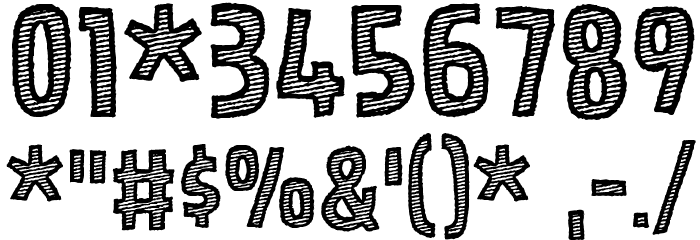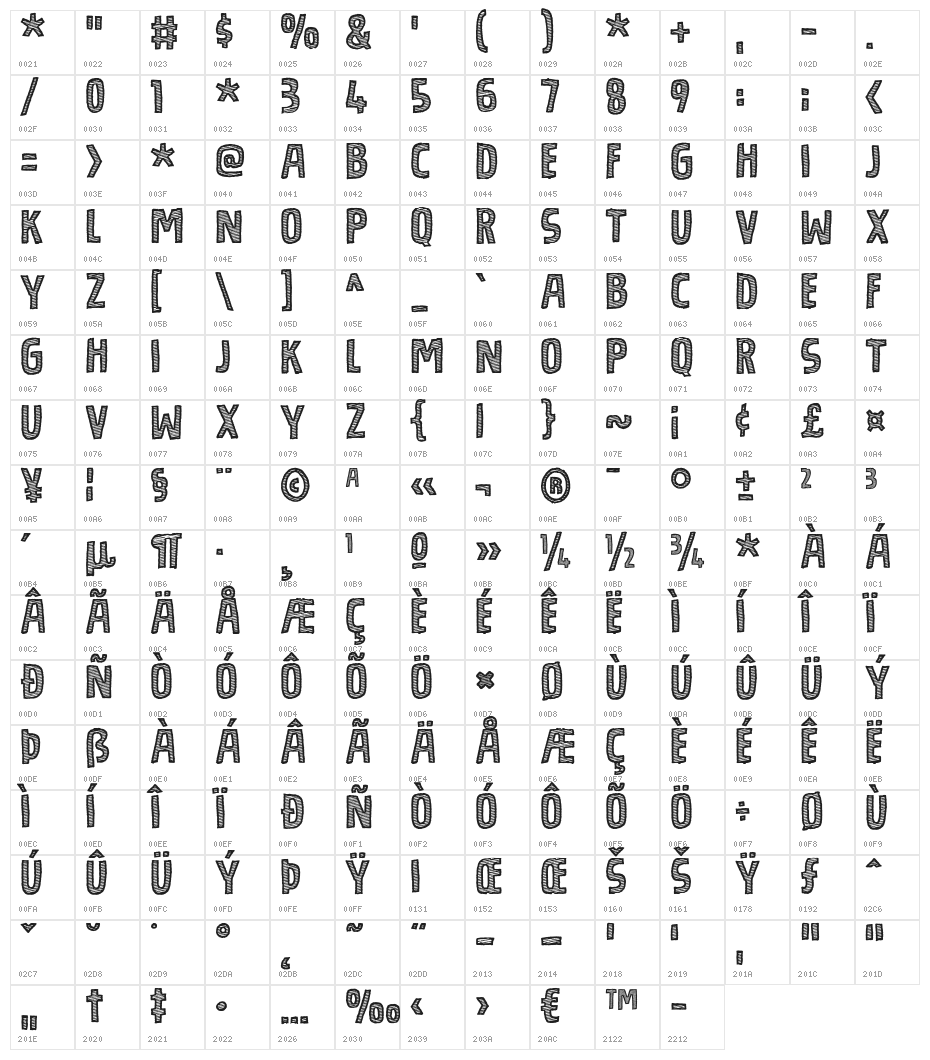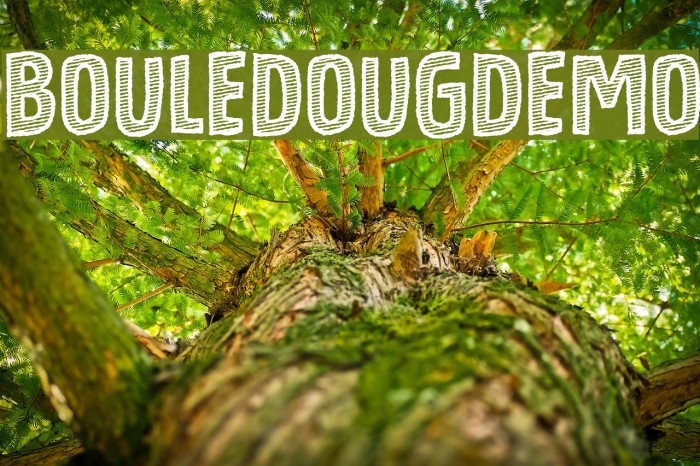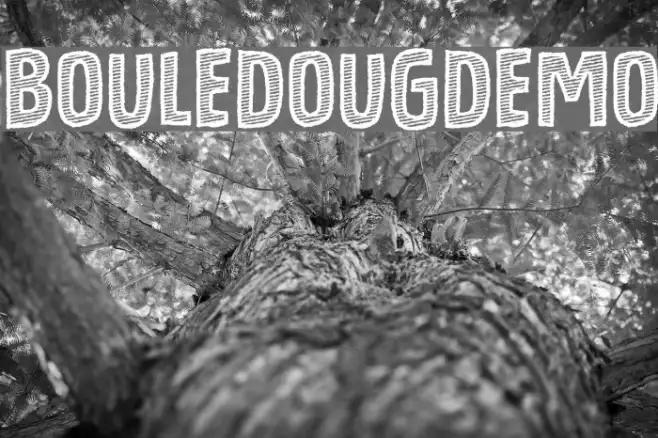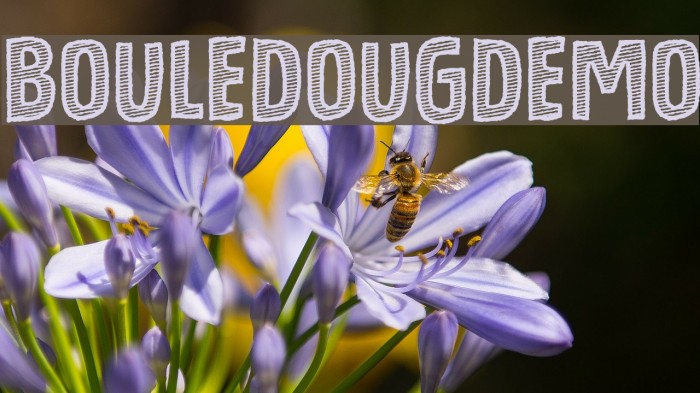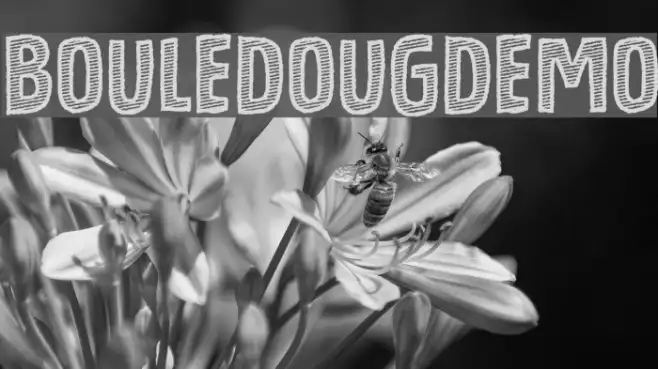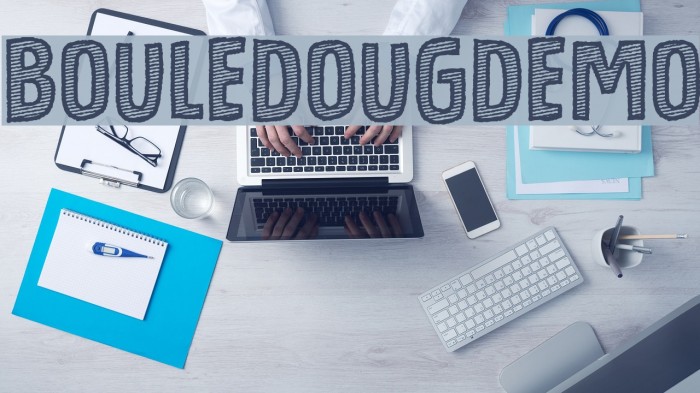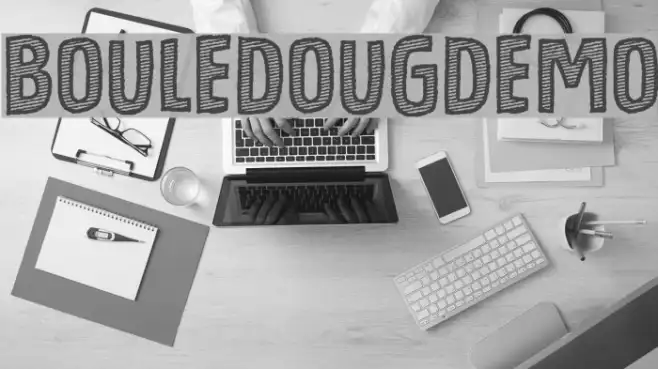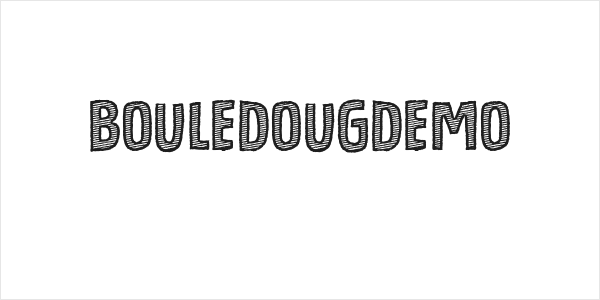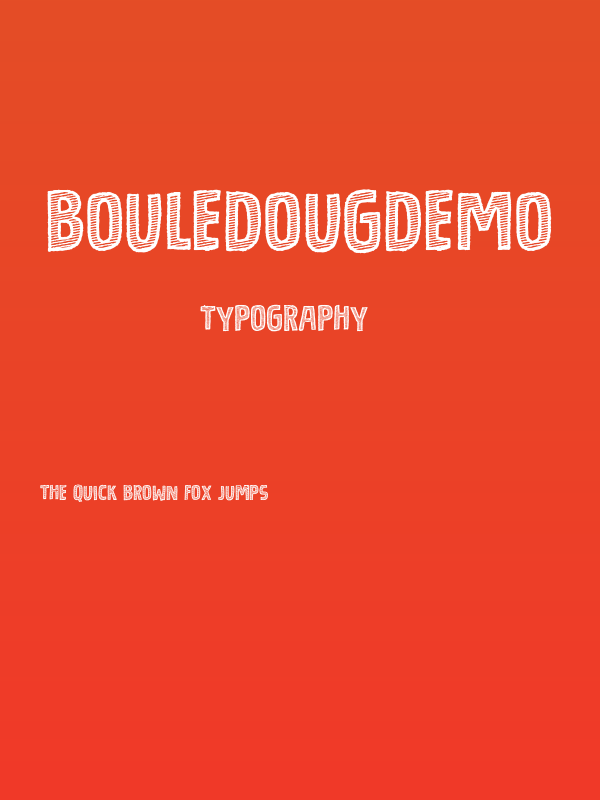
BouledougDEMO Font
BouledougDEMO Description
This font features a bold, hand-drawn style with a textured, sketch-like appearance. Each character is outlined with a thick, uneven stroke that gives it a playful and artistic feel. The letters are uppercase and lowercase, with numbers and a variety of special characters included. The irregularity in the line work adds a dynamic and energetic quality, making it stand out in any design. The font's unique style is reminiscent of chalkboard writing or hand-drawn illustrations, offering a casual yet impactful look.